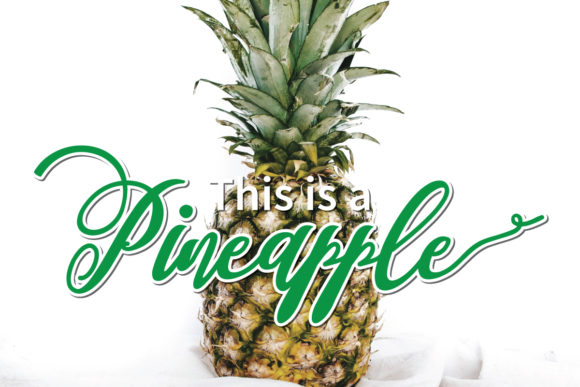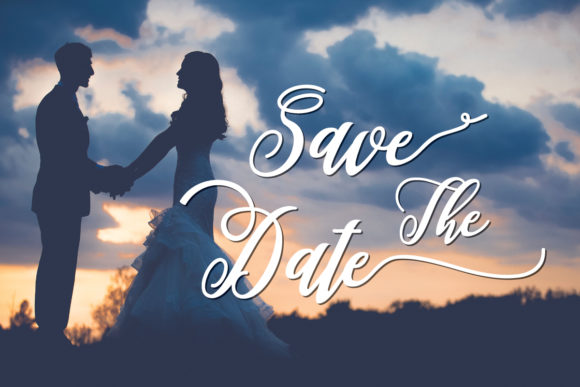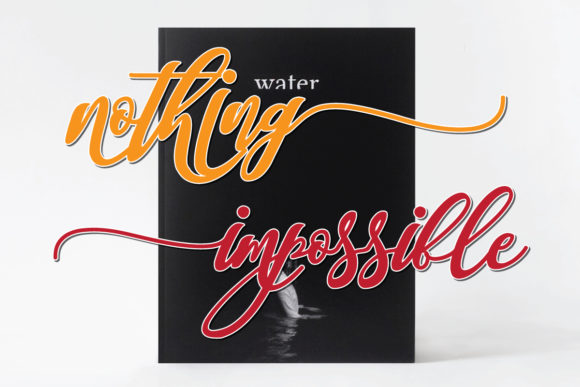
Lorreine Font
About Lorreine Font
Lorreine is a playful and elegant handwritten font with a delicate twist. This unique typeface will turn any crafts project into an eye catcher!